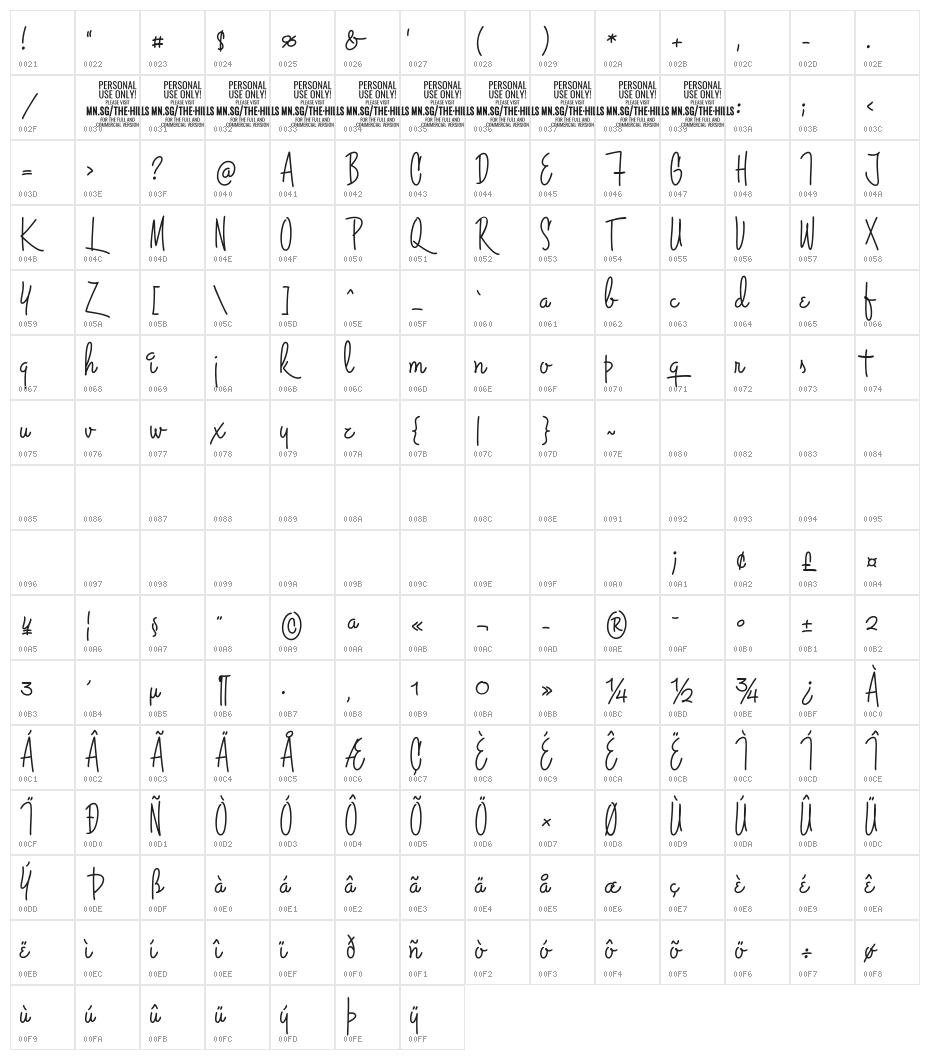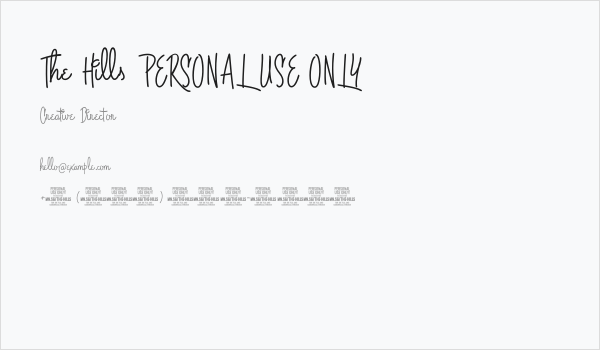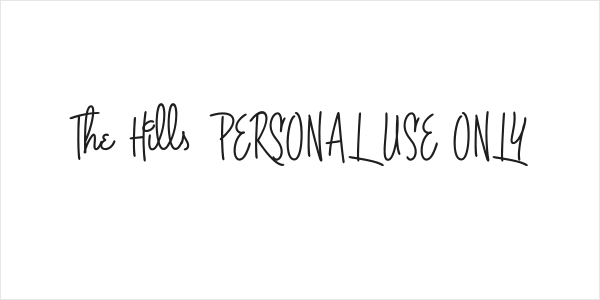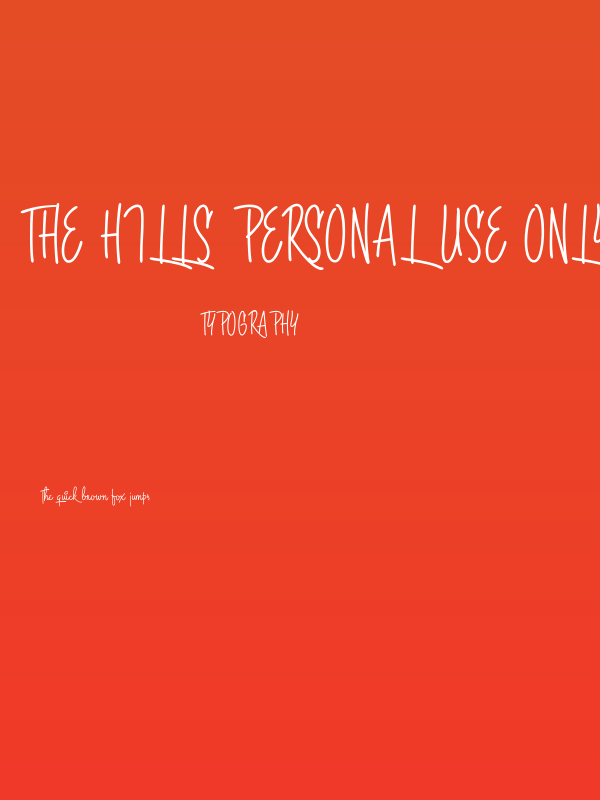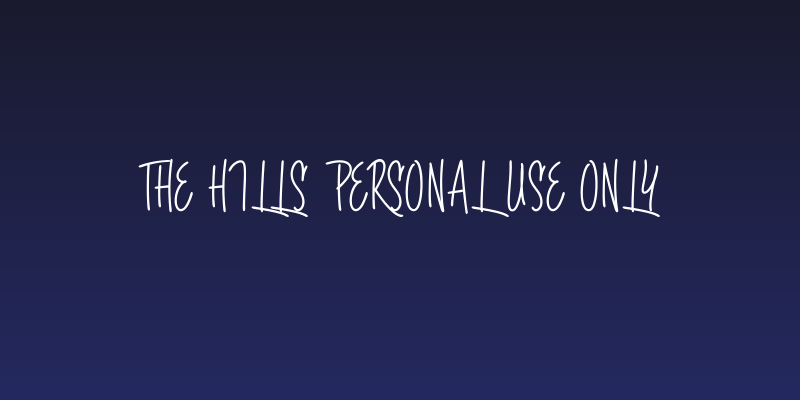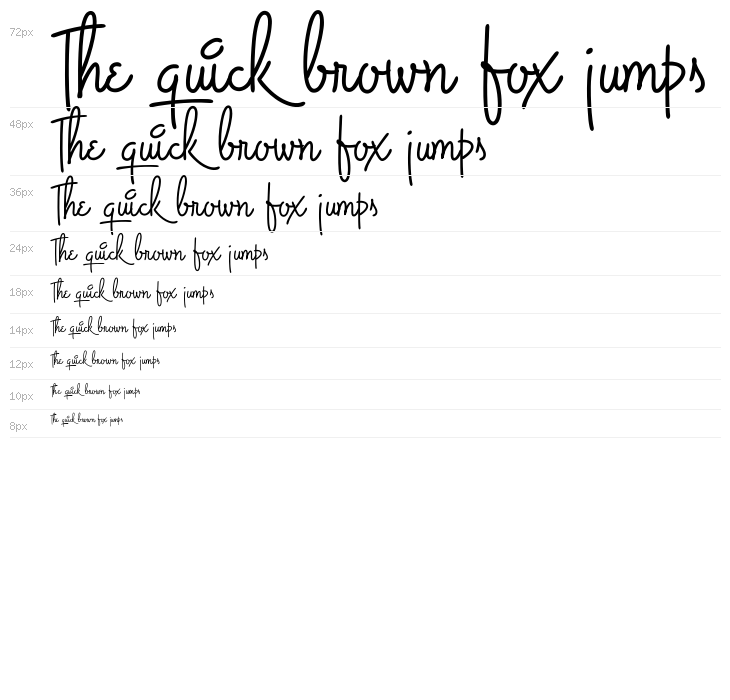
The Hills PERSONAL USE ONLY Font
The Hills PERSONAL USE ONLY Description
This font features a playful and casual handwritten style, characterized by tall, narrow uppercase letters and more fluid, connected lowercase letters. The strokes are uneven, adding a dynamic and lively feel. The uppercase letters have a distinct vertical emphasis, while the lowercase letters exhibit a more cursive, flowing style. The numbers and special characters maintain the same whimsical quality, making the font suitable for informal and creative projects. Its unique style captures attention and conveys a sense of individuality and creativity.
| Overall Style | Casual and Creative |
| Proposed Projects | Ideal for greeting cards, invitations, personal branding, and creative posters. |